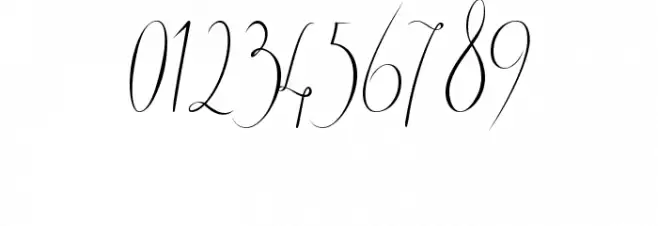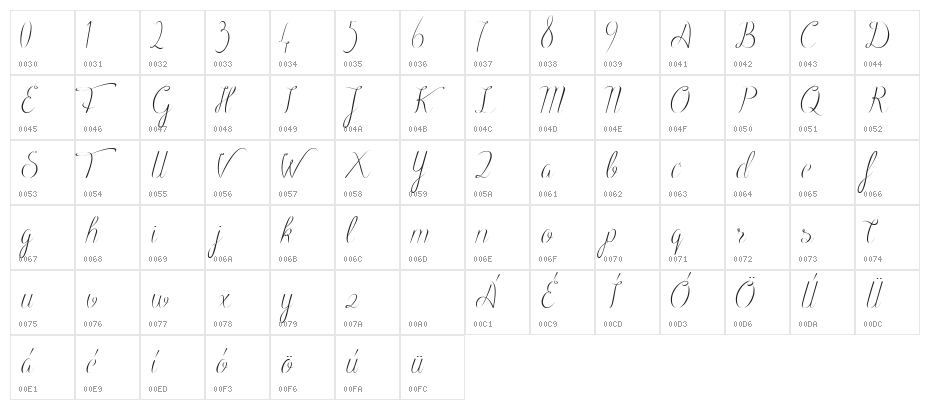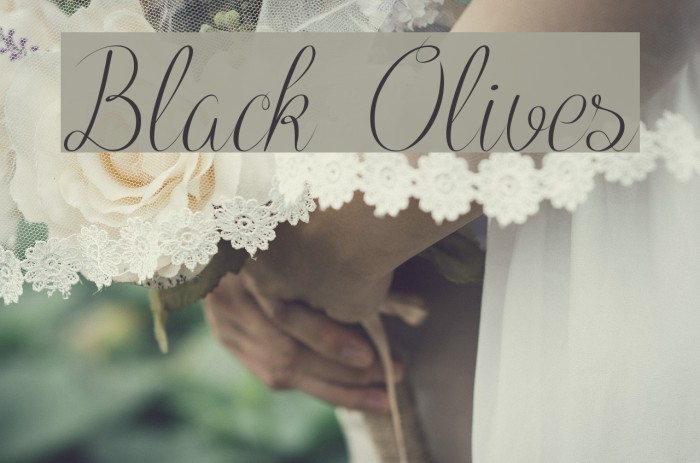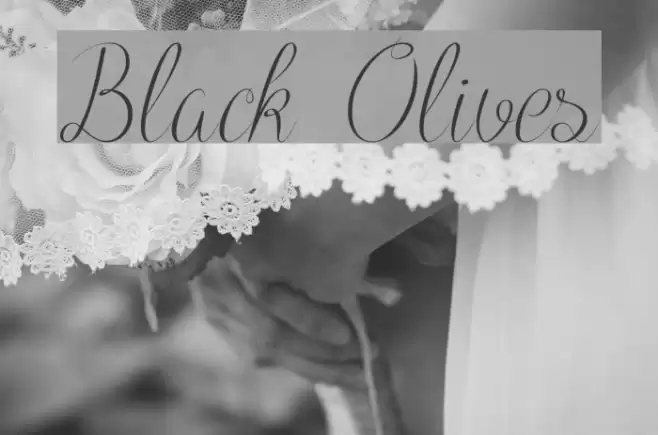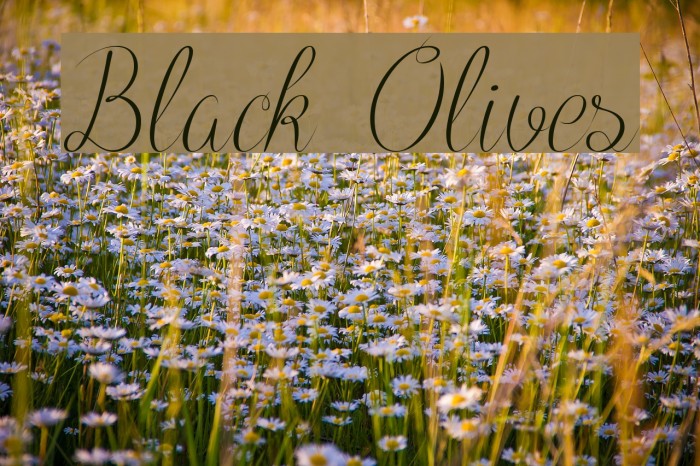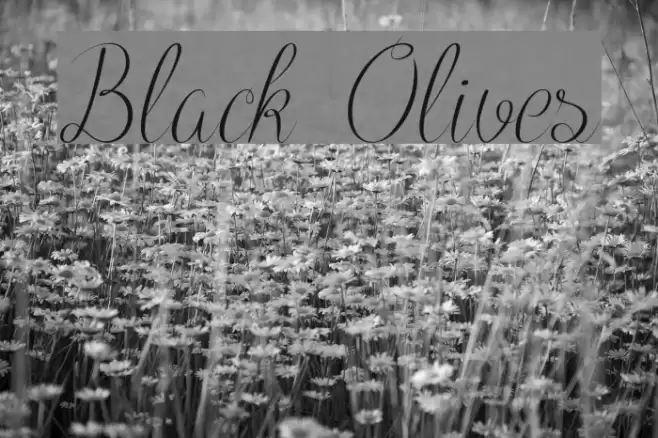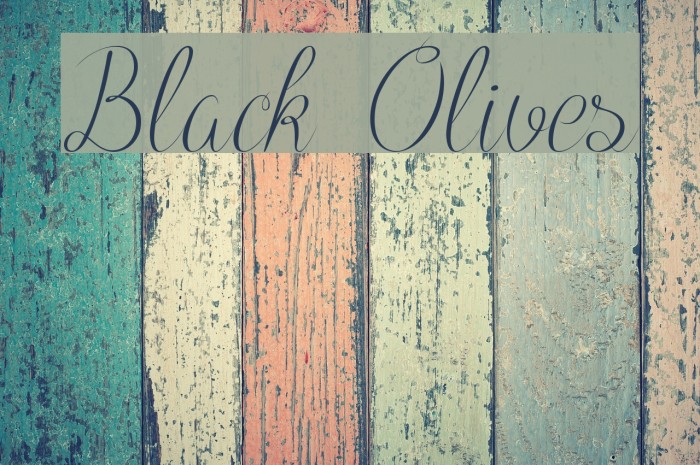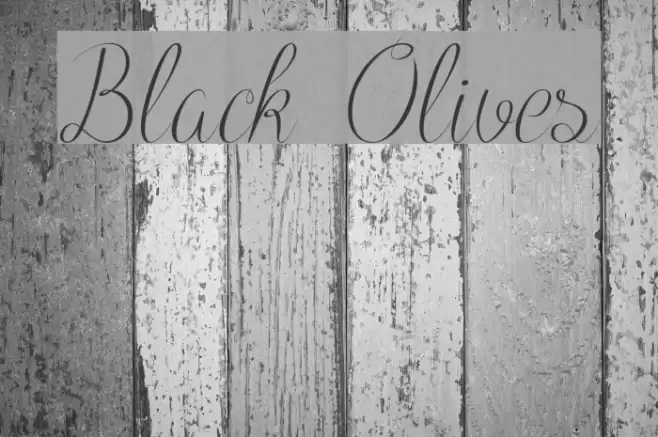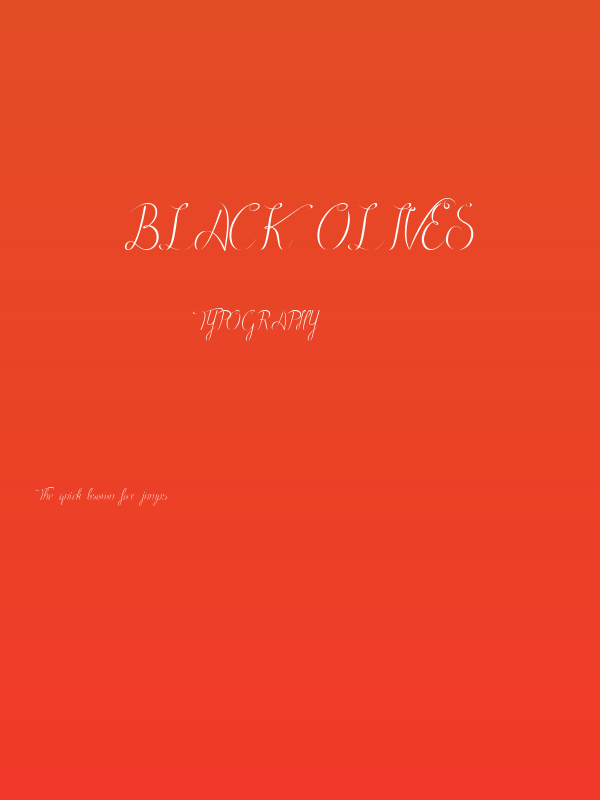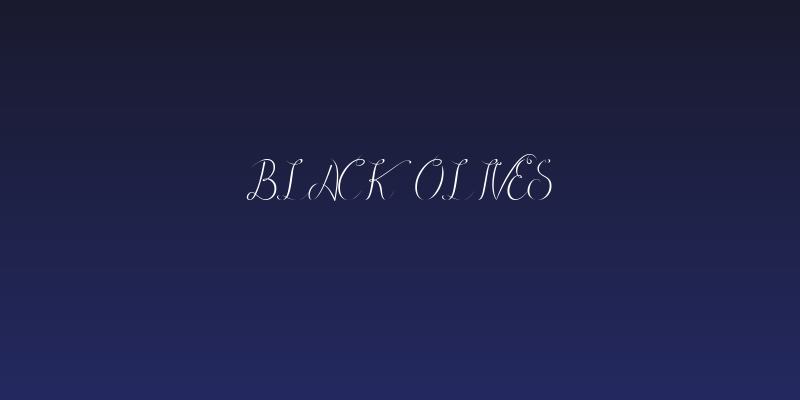
Black Olives Font
Black Olives Description
This elegant script font features graceful, flowing lines with a sophisticated flair. The characters are intricately designed with delicate curves and loops, giving it a refined and artistic appearance. The uppercase letters are particularly ornate, with extended flourishes that add a touch of drama and elegance. The lowercase letters maintain a consistent style, complementing the uppercase with their own subtle flourishes. The numbers are equally stylish, maintaining the font's overall aesthetic. This font is perfect for projects that require a touch of elegance and sophistication, such as wedding invitations, formal event programs, or luxury branding. Its artistic style makes it a standout choice for any design that aims to convey elegance and creativity.
| Overall Style | Elegant, Artistic |
| Proposed Projects | Wedding invitations, formal event programs, luxury branding, artistic designs. |